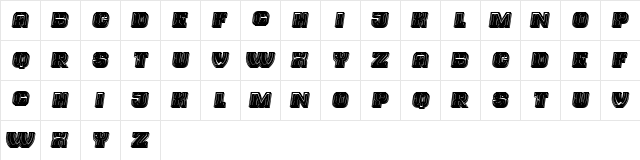
Trader College Filled Italic
Design Context for Trader College Filled Typeface
Trader College Filled brings high-energy athletic personality to the page — its confident, muscular forms are built for impact. Its italic angle brings a sense of urgency and motion to the letterforms.
A natural choice for gym brands, fantasy sports, jersey lettering, and action-driven headlines.
Font Pairing: Use alongside a condensed or geometric sans for supporting copy — keep the pairing bold, functional, and free of ornament.
Pro Tip: Use Trader College Filled in all-caps headlines where its athletic energy can fully express itself. Pair with a solid, simple sans for supporting text.